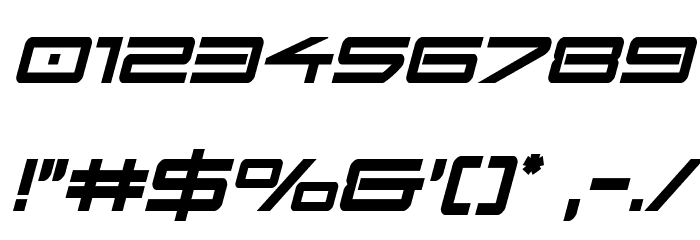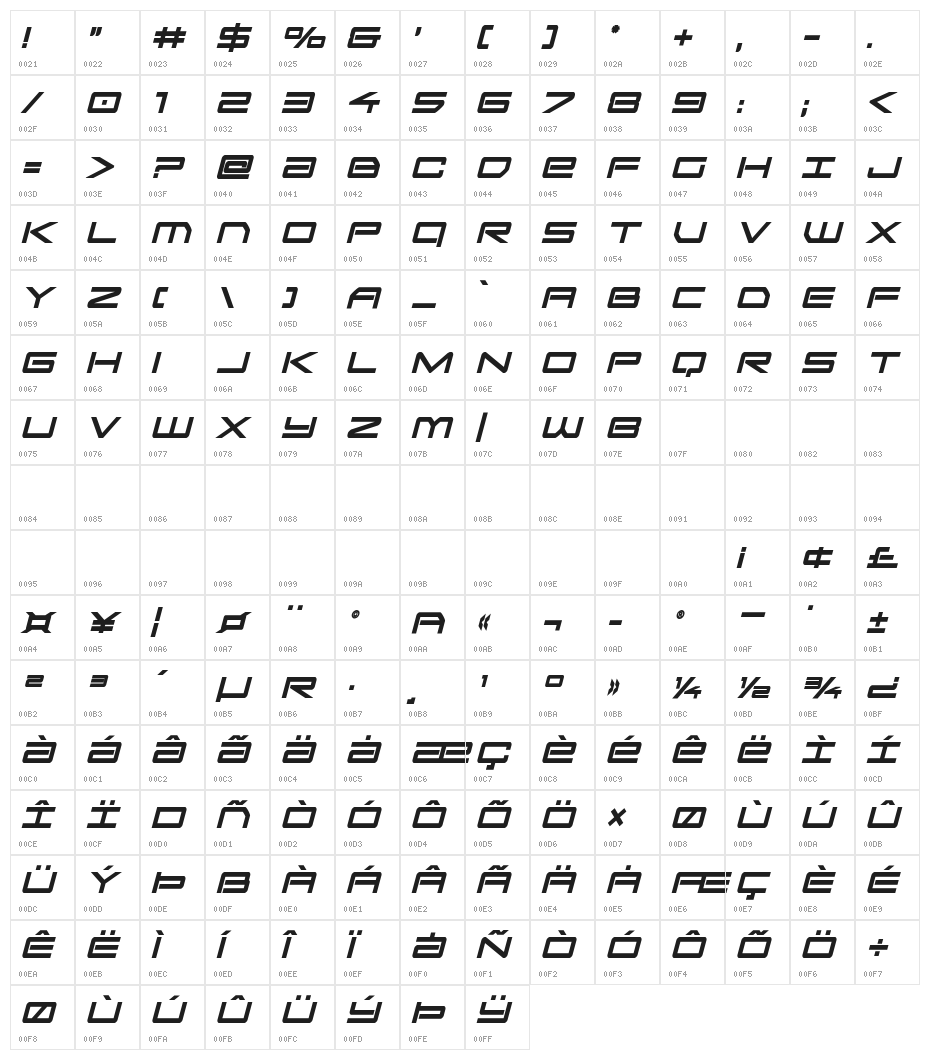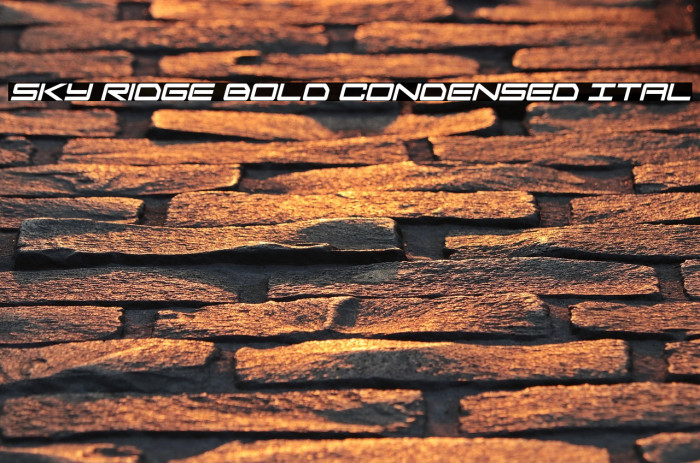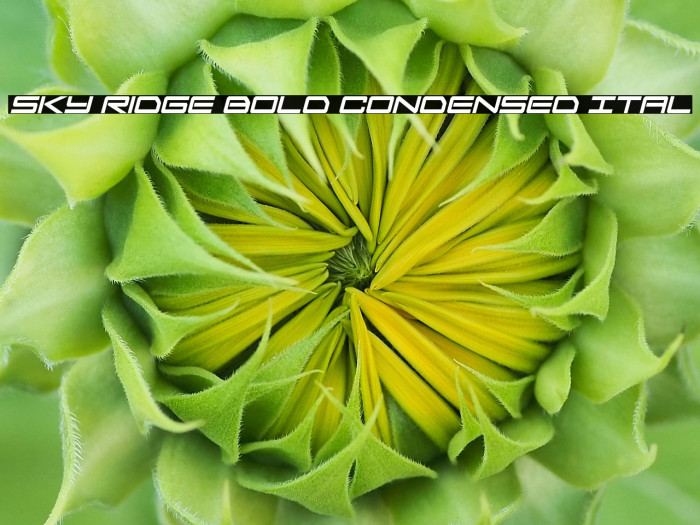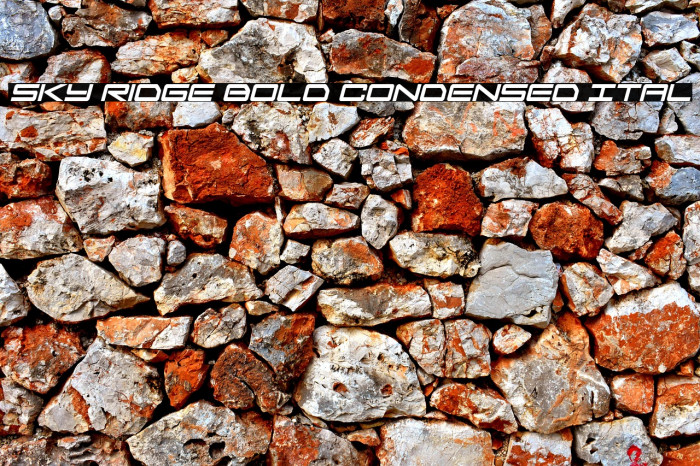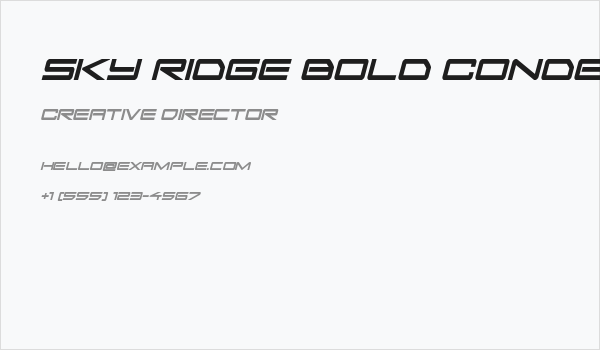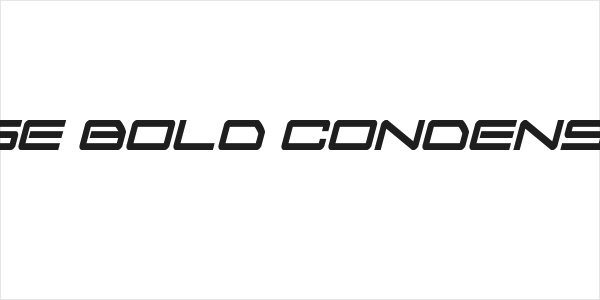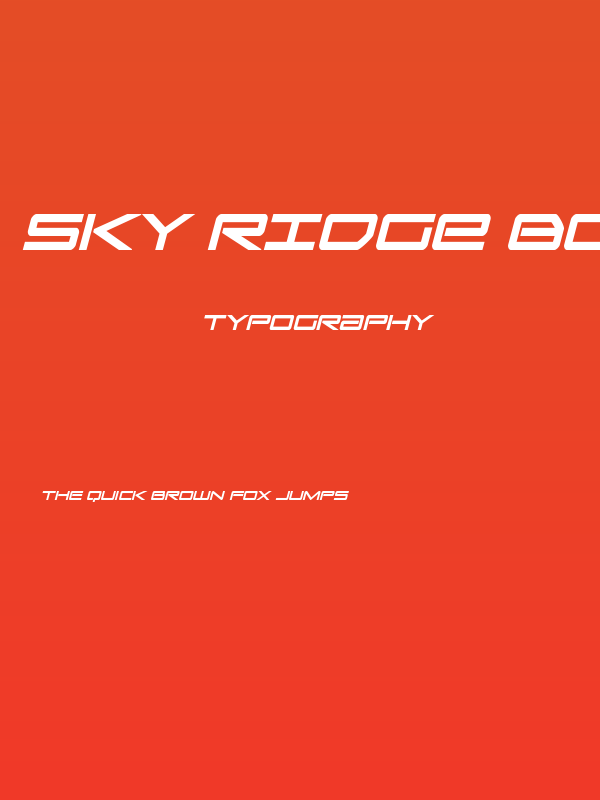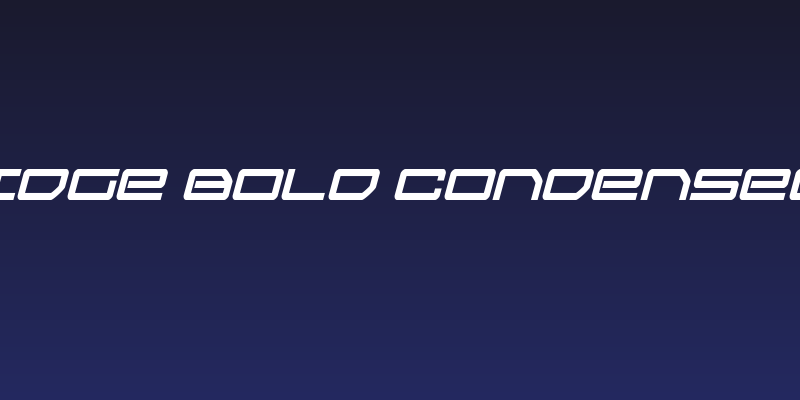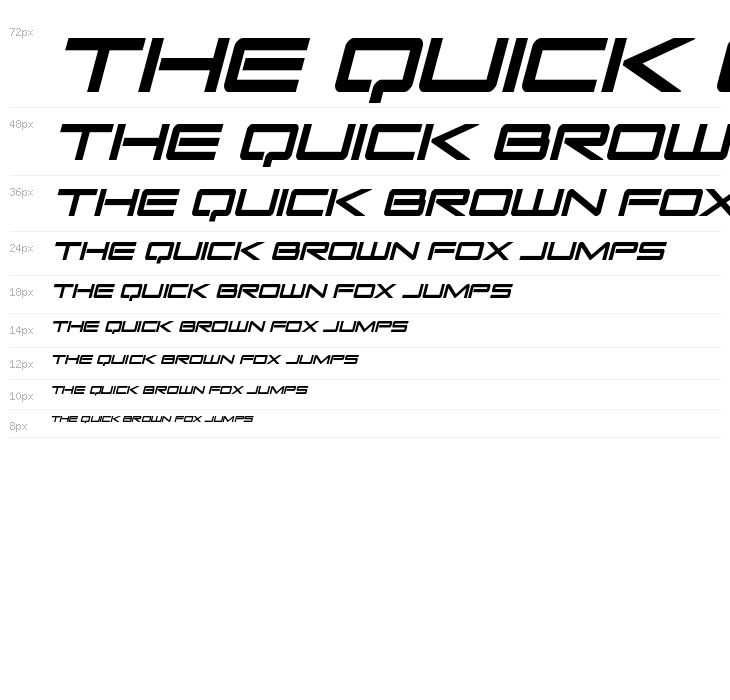
Sky Ridge Bold Condensed Ital Font
Sky Ridge Bold Condensed Ital Description
This font features a bold and condensed style with a distinct italic slant, giving it a dynamic and futuristic appearance. The characters are designed with sharp angles and clean lines, creating a sense of speed and modernity. The uppercase and lowercase letters maintain a consistent geometric structure, while the numerals and special characters complement the overall aesthetic. The font's condensed width allows for efficient use of space, making it suitable for impactful headlines and titles. Its unique style is ideal for projects that require a contemporary and energetic look.